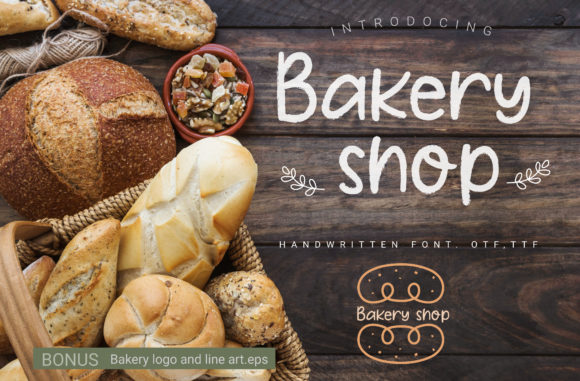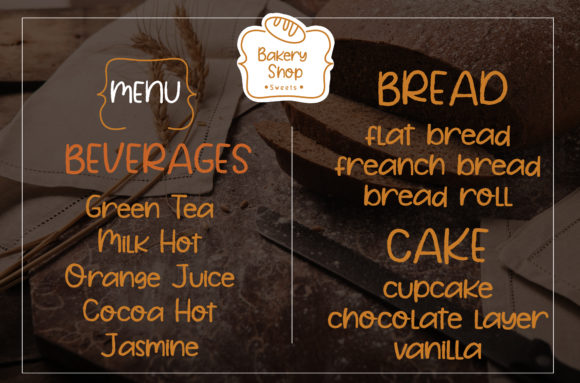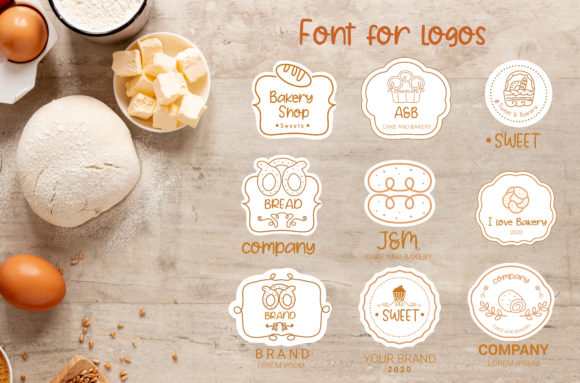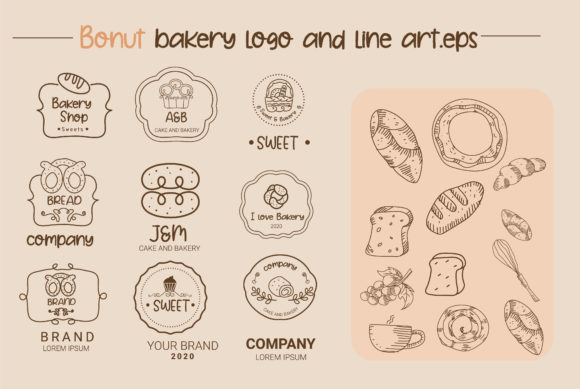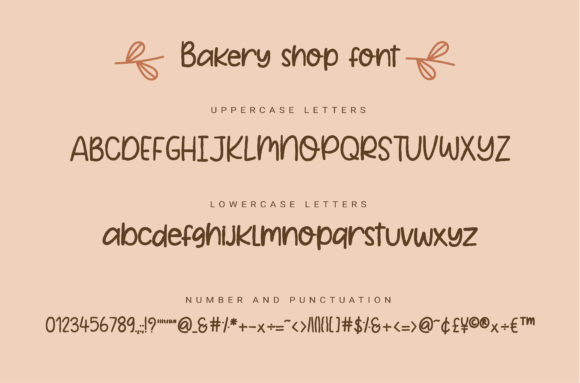
Bakery Shop Font
About Bakery Shop Font
Bakery Shop is a cute font. handwriting. It features an incredibly friendly style and is the perfect font for making original and outstanding designs.